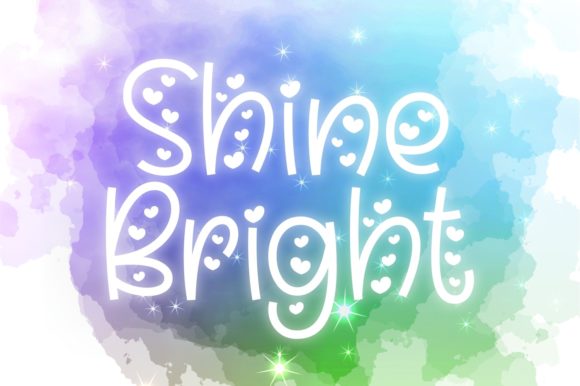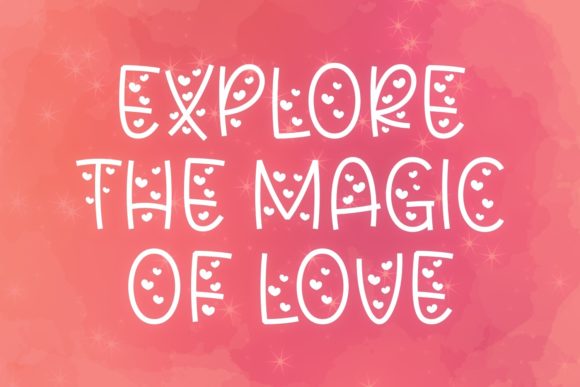
Amore Brigitta Font
db-ku.com - Script & Handwritten -- Amore Brigitta is a beautiful handwritten font sprinkled with adorable heart elements. It is perfect for spreading an extra touch of love to any project. This stunning exclusive font is perfect to use for Valentine's Day cards, and other love crafts!